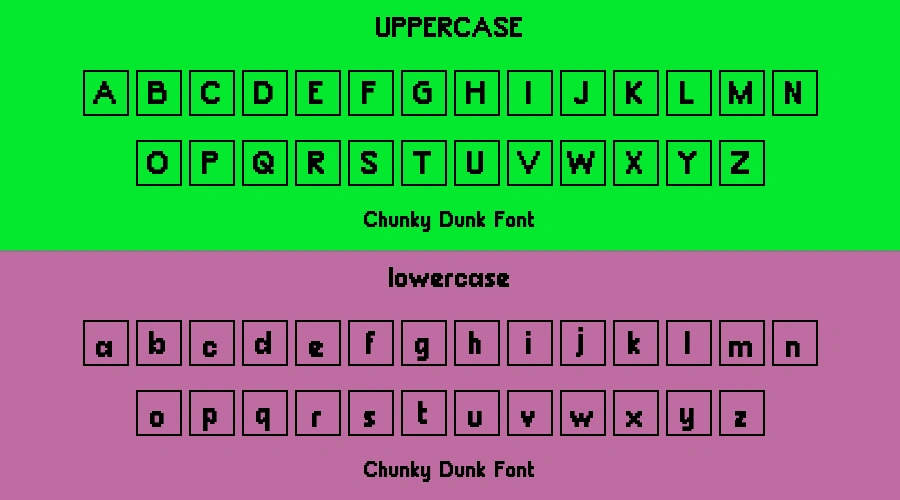
About Chunky Dunk Font
Chunky Dunk Font represents a sophisticated approach to type design, balancing width contrast with refinement. Perfect for editorial design, this font family showcases impressive expressiveness and creative impact throughout its character set. Designers appreciate its versatility and reliability.
Designers will appreciate nuanced touches including high x-height and technical characters, adding sophistication to any project. These features become apparent in technical diagrams, where file optimization matters most. The careful treatment of counter shape and creative expression ensures optimal performance.